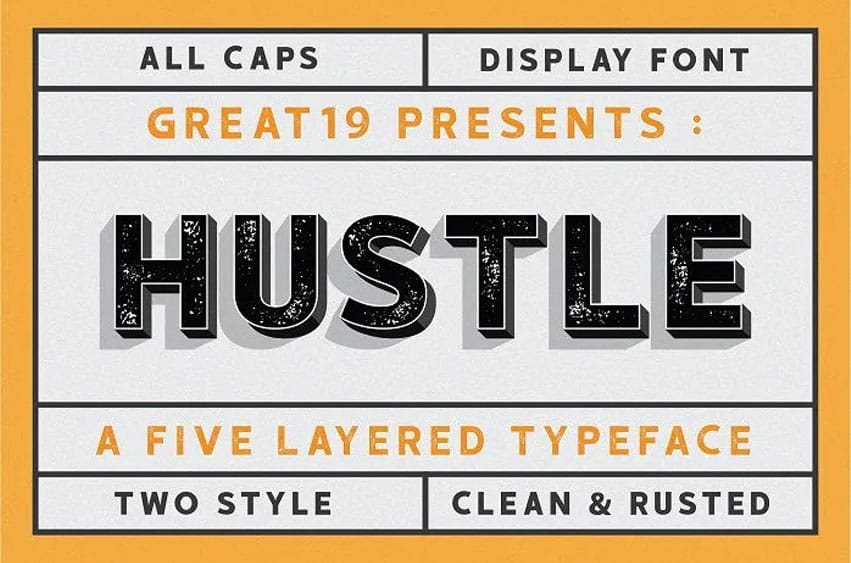
Hustle Font Family is created by the great19. Hustle is a display typeface with 5 layered system, that has two styles (clean and rustic) for the top layer. With 5 layers system this font has a lot of possibilities variations.
Thus, with the rustic top layer Hustle has a nice vintage retro industrial feel but at the same time it also has a modern touch because of its clean top layer. This font is suitable for tittle, headline, logo, badge , emblem , poster , sign and display design .